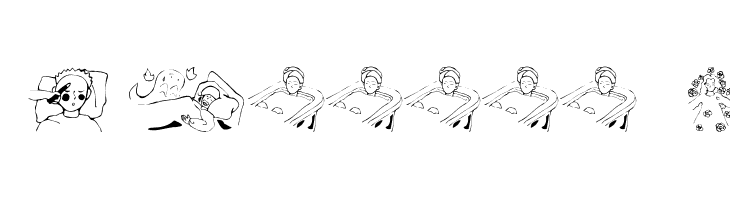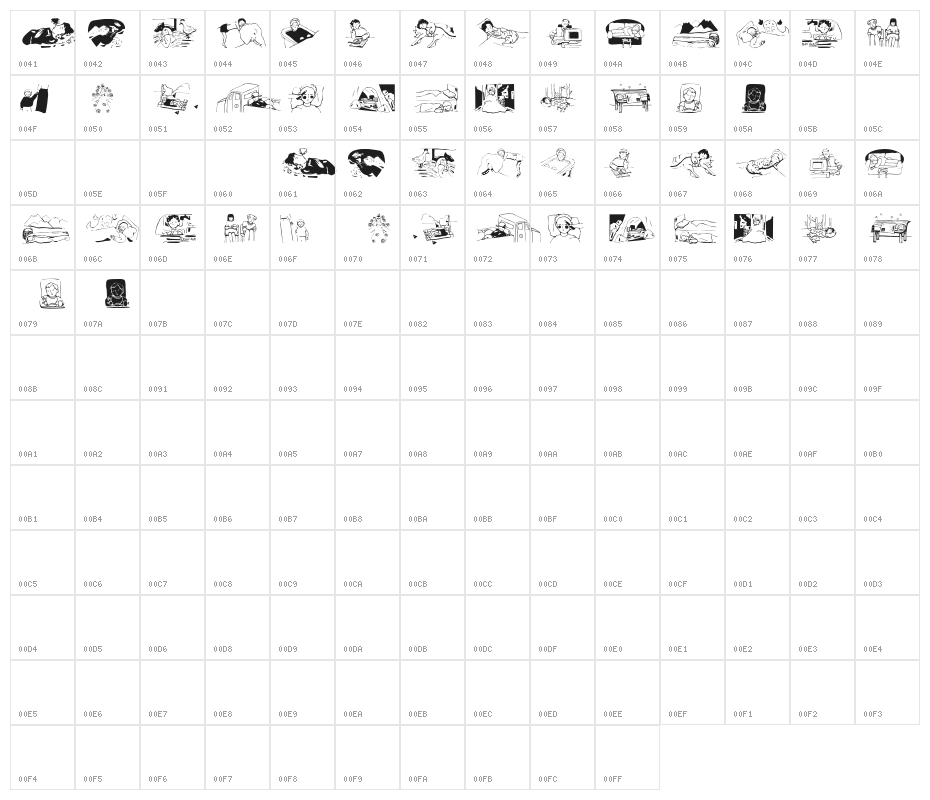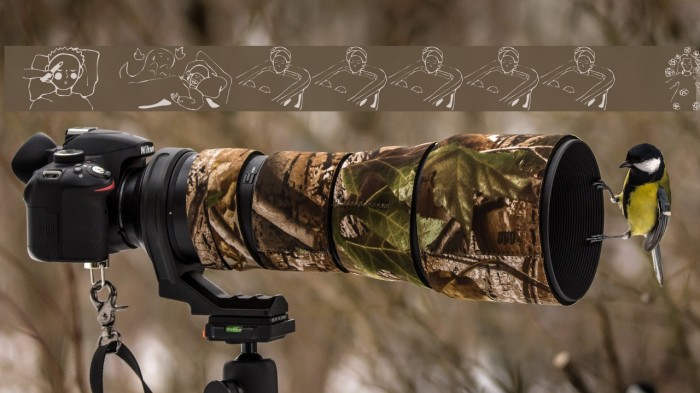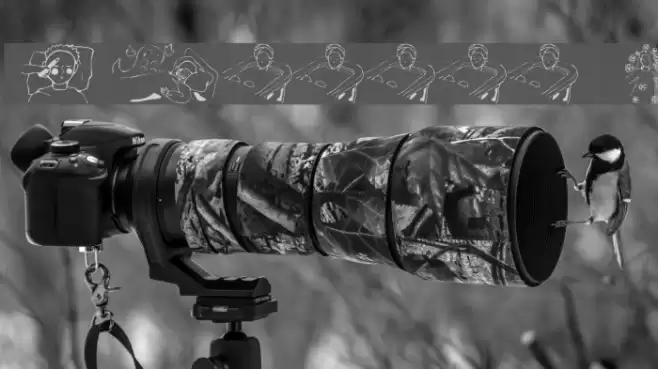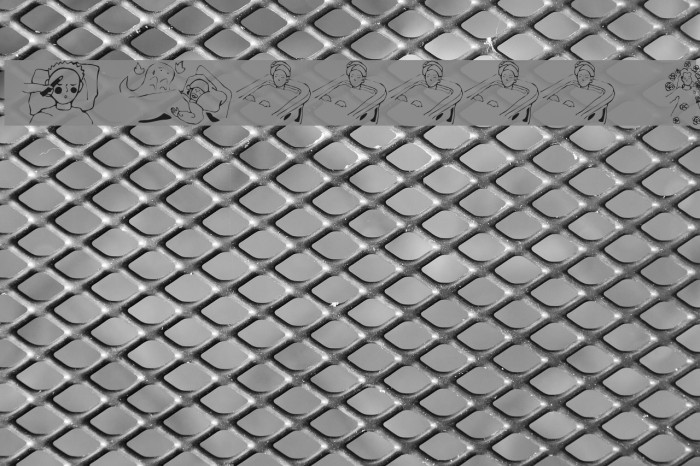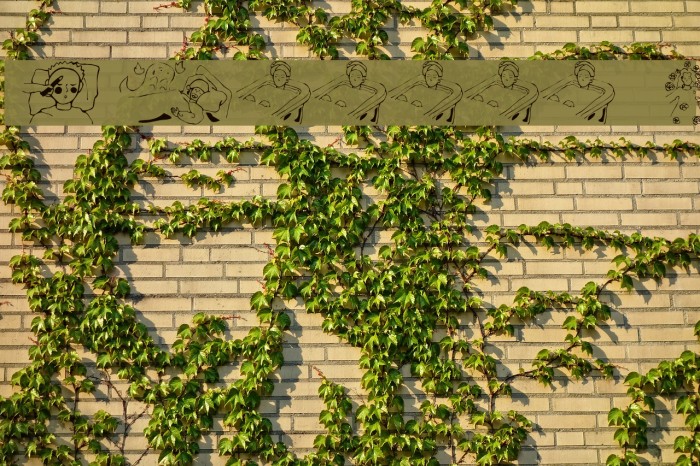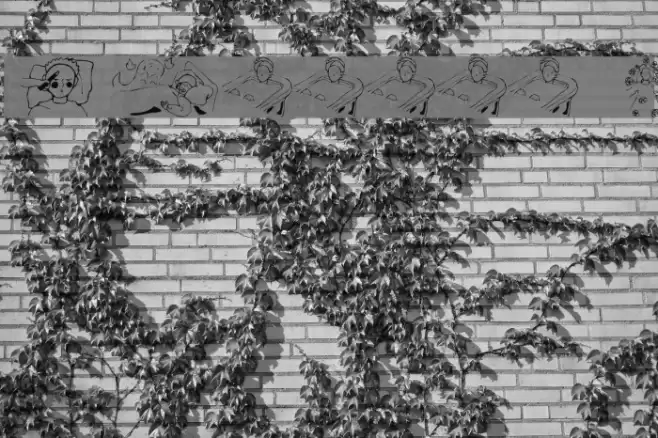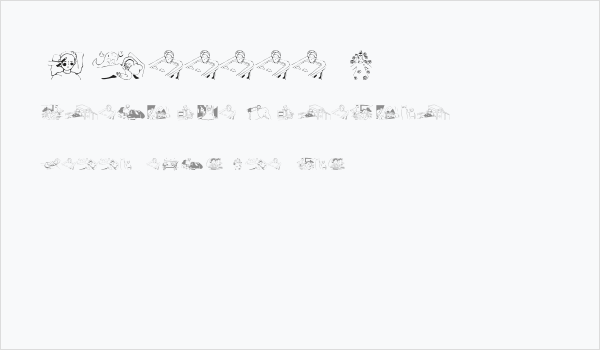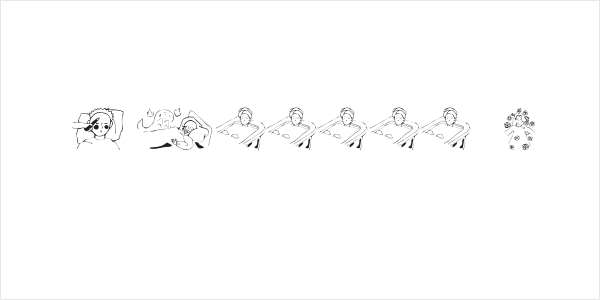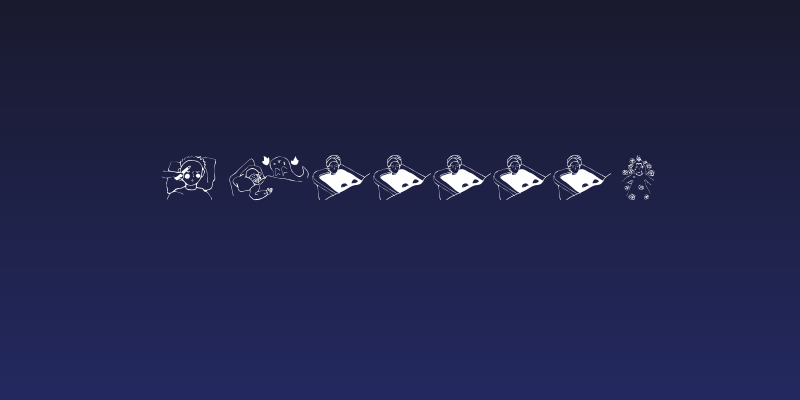
Sleeeeep Font
Sleeeeep Description
A decorative dingbat-style font featuring hand-drawn illustrations of people and animals sleeping, resting, or lounging in various settings. Each character is represented by a unique, detailed line drawing, giving the font a whimsical and illustrative appearance.
| Overall Style | Decorative, Whimsical, Illustrative |
| Use Case | Decorative elements, Icons, Themed graphics |
| Proposed Projects | Children's books, sleep clinic branding, wellness blogs, bedtime story illustrations, decorative posters. |